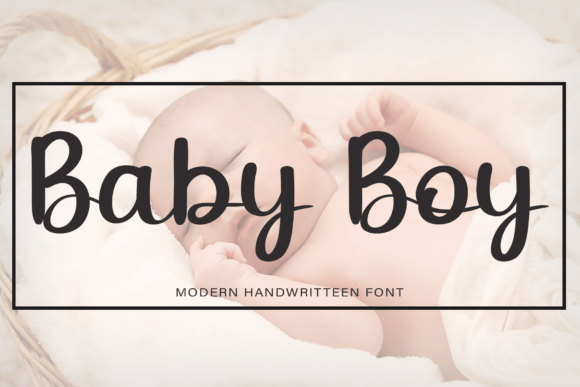
Introducing Baby Boy Font: A Charming Addition to Your Design Portfolio
Who hasn’t been moved by the sight of a little boy’s smile, or the joy of watching a child discover the world around them? It’s moments like these that inspire creativity and spark new ideas. For designers, there’s no greater thrill than capturing the essence of childhood in a single design element. That’s where the Baby Boy Font comes in – a delightful handwritten script font designed to celebrate the innocence and wonder of little boys.
With its playful yet refined strokes, the Baby Boy Font is the perfect addition to any design project that aims to capture the magic of childhood. Whether you’re creating a baby shower invitation, designing nursery decor, or simply looking for a charming font to add a personal touch, the Baby Boy Font is a valuable asset to have in your design toolbox.
Baby Boy Font Key Features
- Unique Characteristics: The font features a playful, cursive script with rounded edges and smooth connections between letters, making it perfect for creating a friendly and approachable tone.
- Font Style: The font is available in both regular and italic styles, providing flexibility for designers to choose the perfect style to suit their design needs.
Baby Boy Font Review
When I first saw the Baby Boy Font, I thought it was going to be a bit too cutesy for my taste, but as I dug deeper, I found some interesting aspects to this font.
- Unique flair: The font’s playful, handwritten feel makes it stand out in a crowd. It’s perfect for projects that need a touch of whimsy.
- Readability: Despite its cursive nature, the font is surprisingly easy to read, even at smaller sizes.
- Versatility: The Baby Boy Font comes in a range of weights and styles, making it suitable for everything from children’s books to advertising materials.
- Limited professional applications: The font’s cutesy feel may not be suitable for more formal or professional projects.
- Lack of consistency: The font’s handwritten feel can sometimes make it look a bit inconsistent or sloppy.
Overall, the Baby Boy Font is a fun and versatile option for projects that need a playful touch. While it may not be suitable for every occasion, it’s a great choice for those looking to add some whimsy to their design.